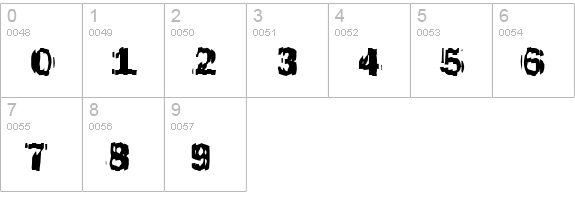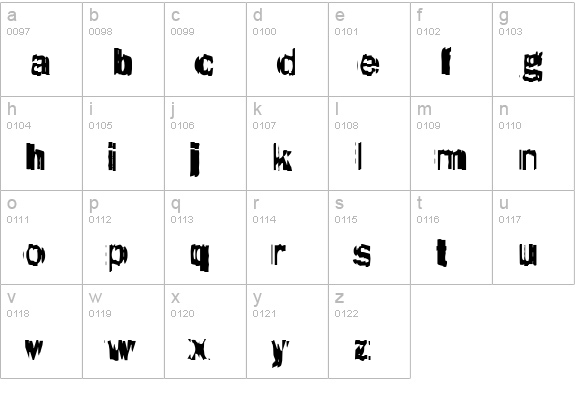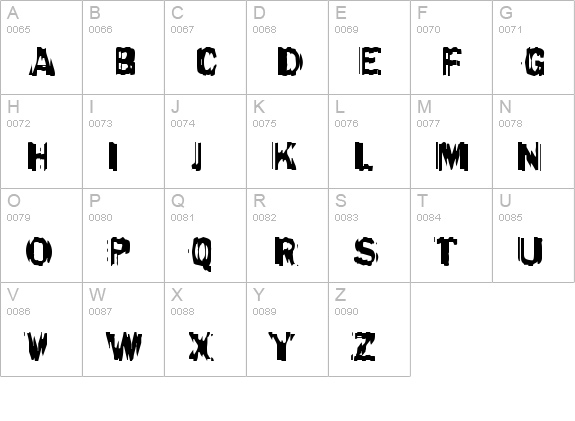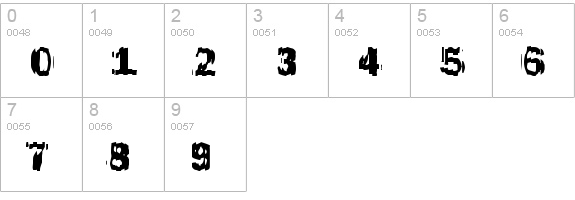
Funky46-Bold Font Details
Funky46-Bold is a strong, high-contrast variant in the Funky46 typeface family \xE2\x80\x94 well suited to headlines, attention-grabbing titles, and strong calls-to-action.
Funky46-Bold is a fun and vibrant display font that exudes a bold and stylish vibe. With its playful curves and unique shapes, this font is perfect for making a statement in your designs. Whether you're working on a poster, logo, or any other creative project, Funky46-Bold is sure to catch the eye and leave a lasting impression. And the best part? Funky46-Bold is completely free to download at FontsMarket.com! You can easily add this eye-catching font to your collection without spending a dime. So go ahead and unleash your creativity with Funky46-Bold, the perfect choice for adding a touch of funkiness to your designs.